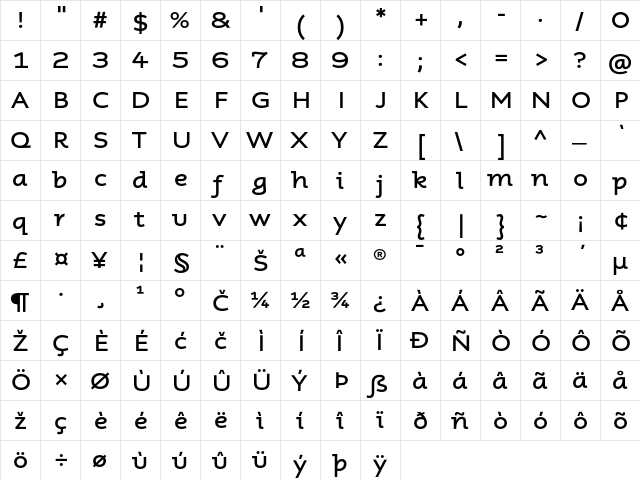
Aspect Bold Font Preview
Aspect Bold
Aspect Bold Font Details
| Foundry | Jeremy Tankard, |
Design Context for Aspect Typeface
Aspect is a composed and adaptable typeface that performs quietly and consistently across a wide range of design contexts. Its bold stroke weight gives it real presence on the page.